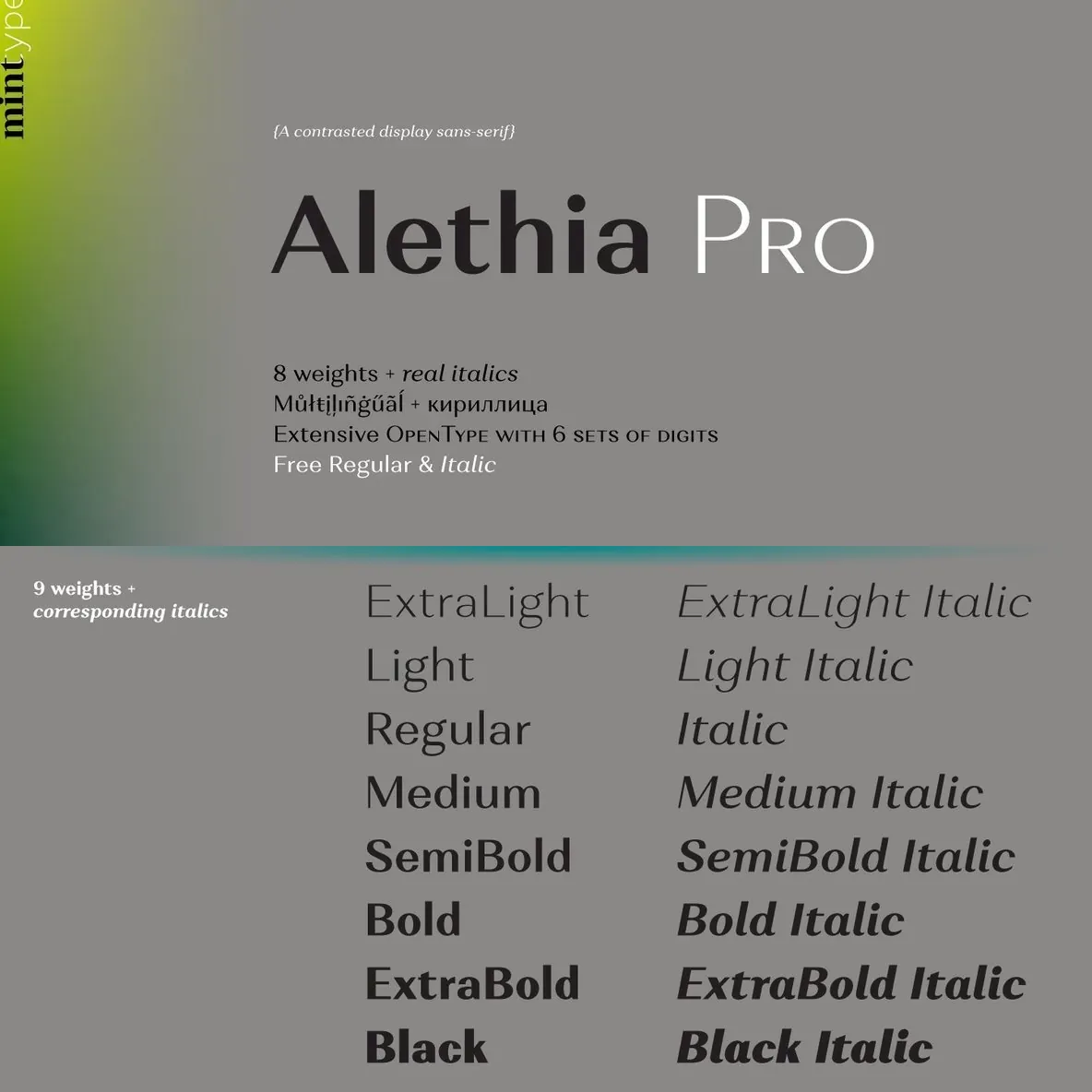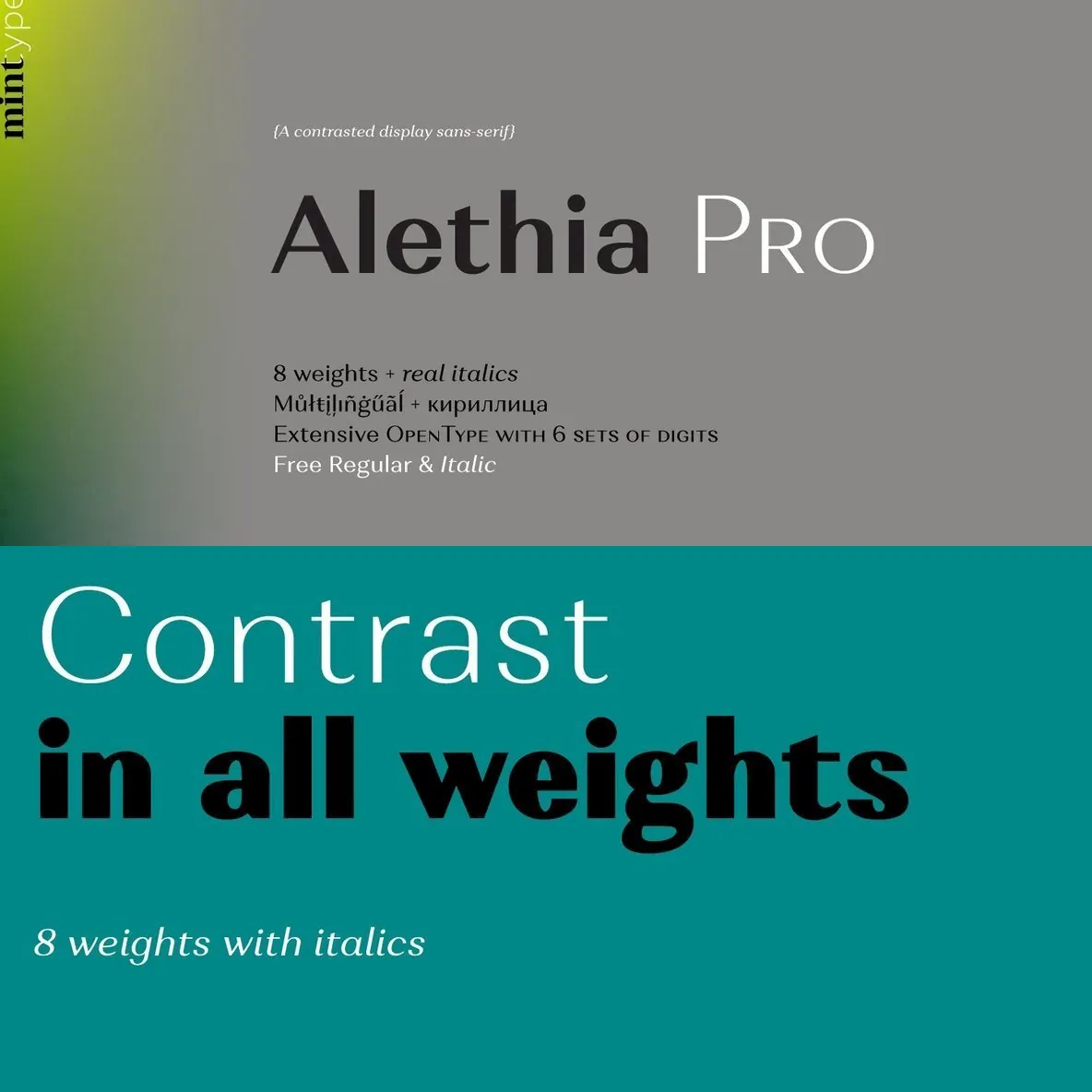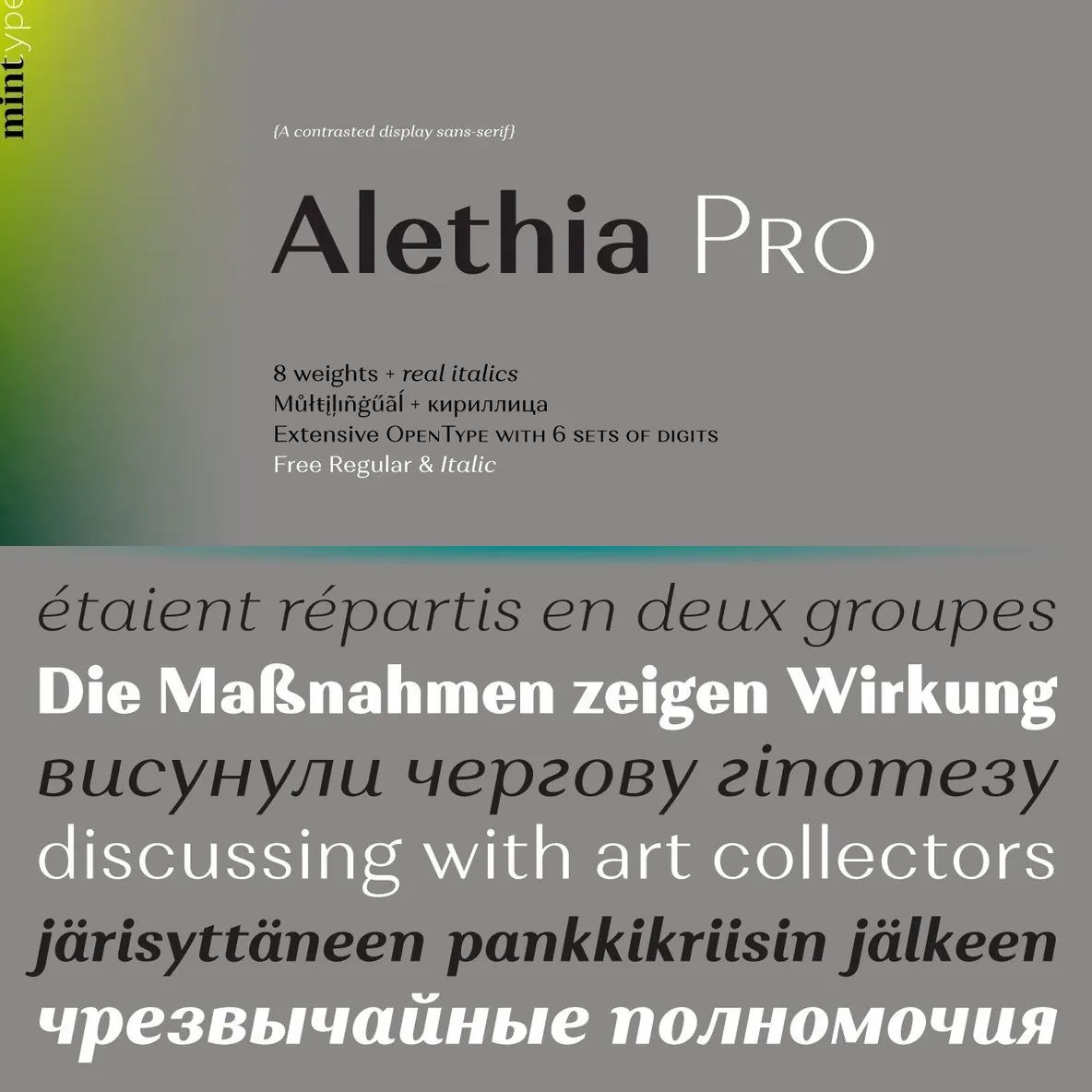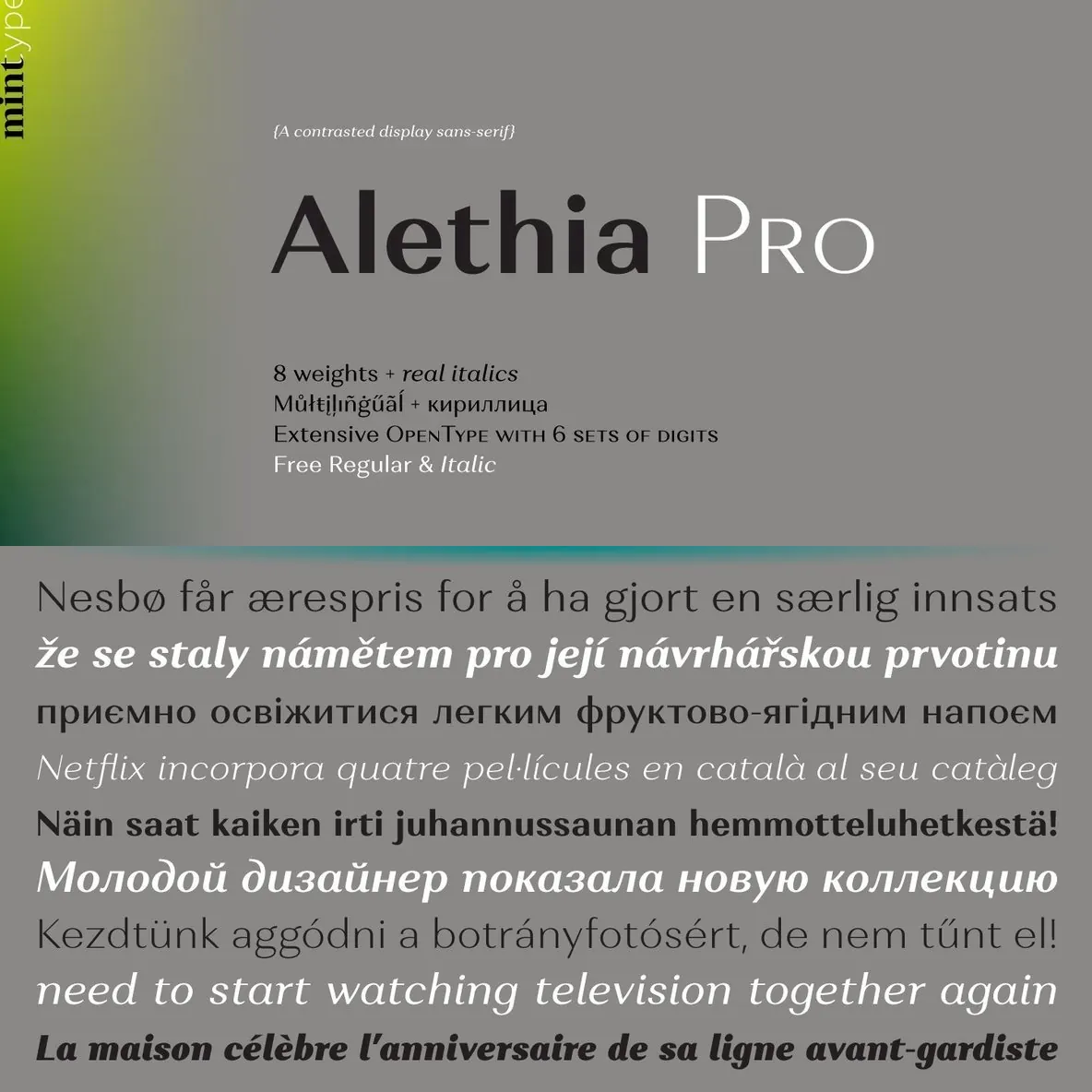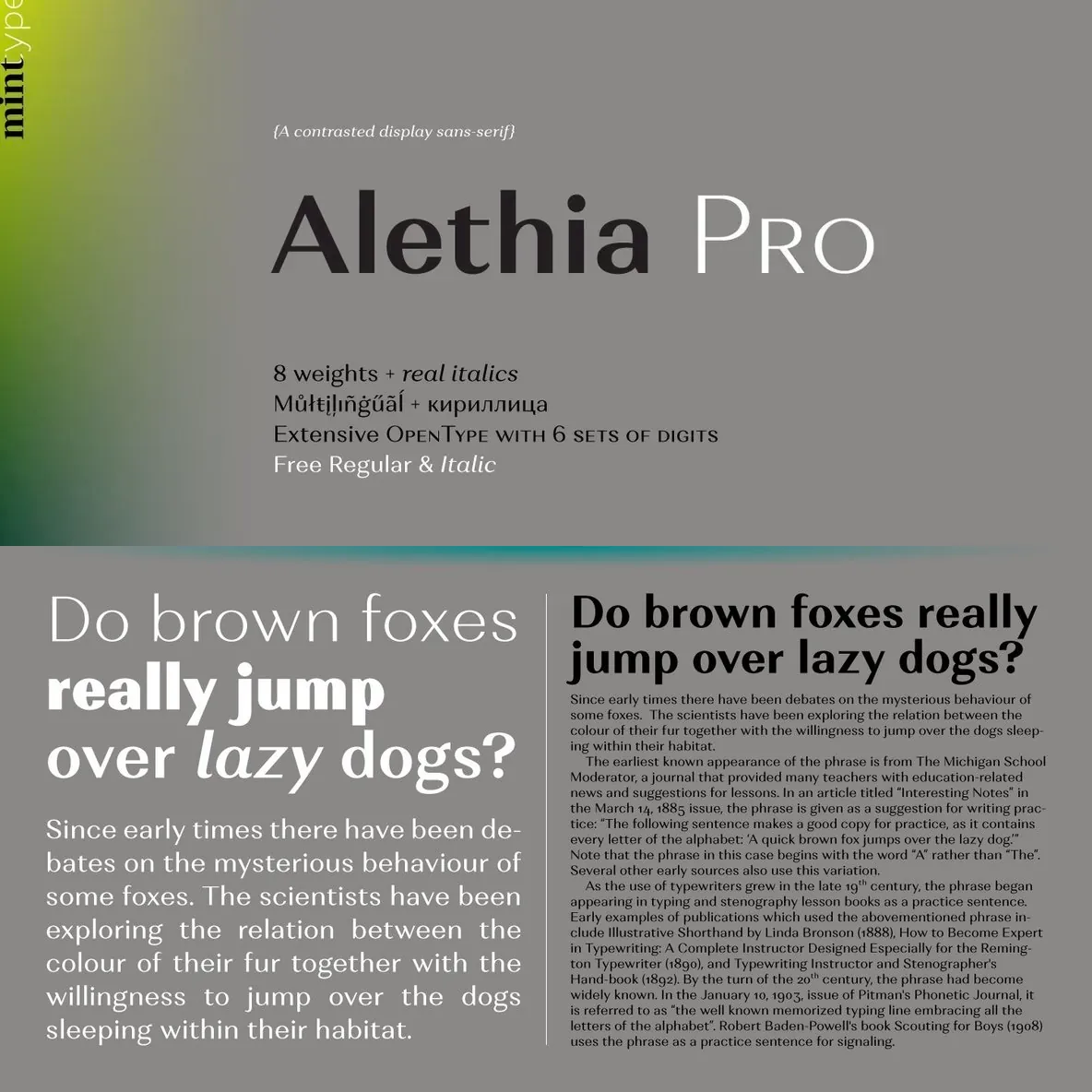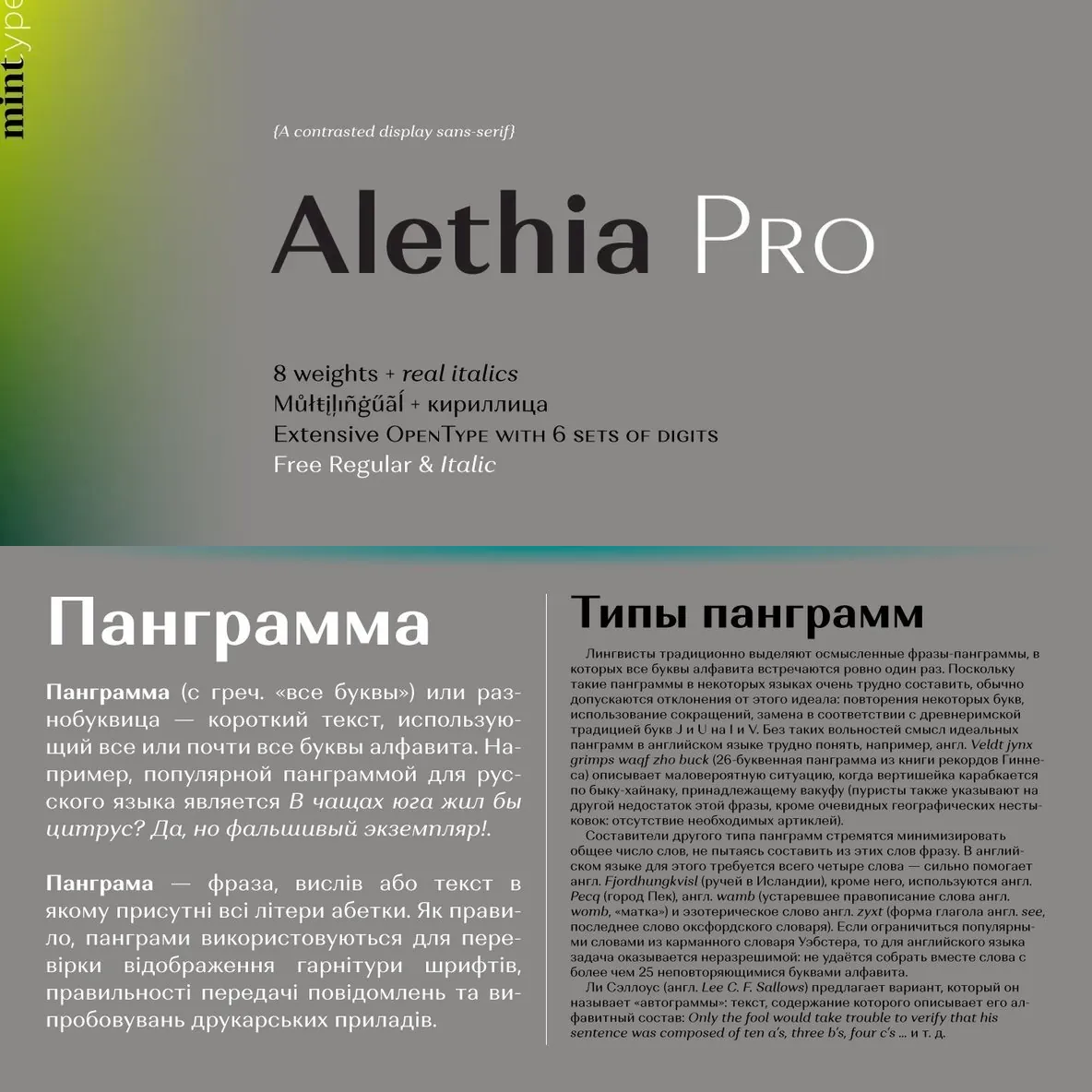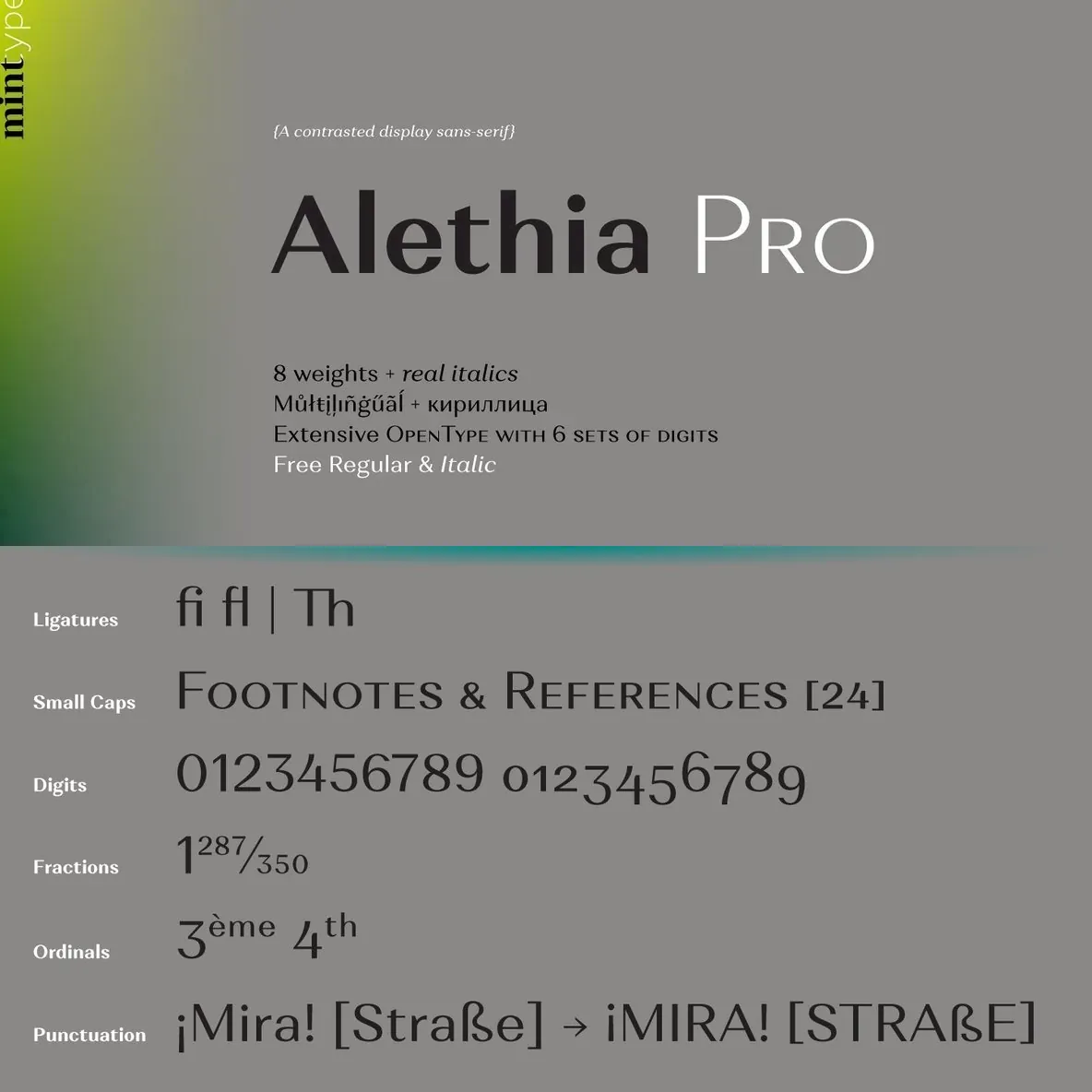
Alethia Pro Font
Alethia Pro: High-contrast grotesque for editorial display
A grotesque sans-serif typeface with high contrast in all weights, built for display typography. It suits a wide range of editorial projects, including magazines and corporate brochures. Use it confidently as a sans-serif pair to modern-style serif types, where contrast and clean structure need to work together on the page.
Alethia Pro comes in 8 weights + matching italics. Each style supports numerous Latin-based languages as well as major Cyrillic languages. The family also includes a strong OpenType feature set for professional publishing, with multiple numeral systems, stylistic options, and punctuation varieties for refined typographic control.
Designed by Oleh Lishchuk
OpenType Features
Ligatures
Small caps
6 sets of digits
3 stylistic sets
Superiors and inferiors
Fractions
Ordinals
Respective punctuation varieties including all-cap punctuation
Language-specific alternates